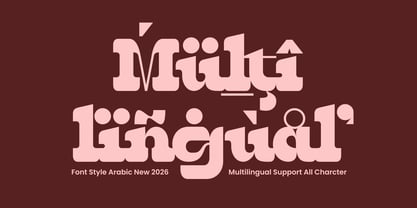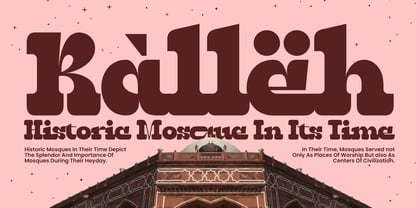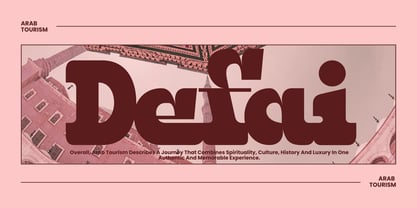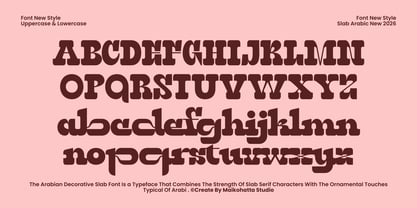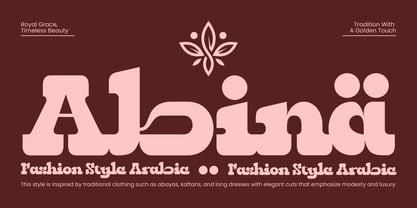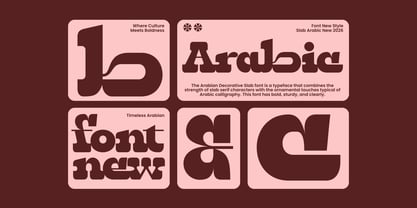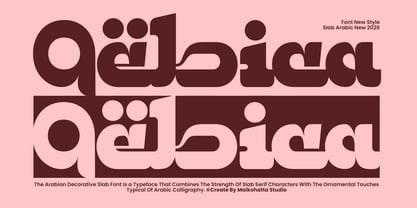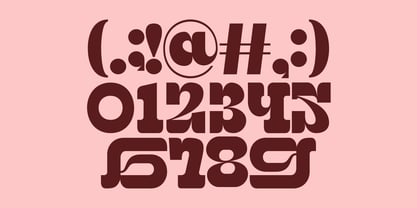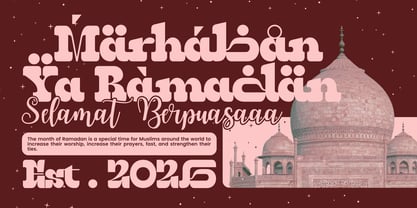
Qebica
The Qebica Font Family was designed by Gilang Ternadho and published by Maikohatta. Qebica contains 1 styles. More about this family
Introducing our new product Qebica – Arabic Decorative Slab Serif Qebica is a bold and distinctive Arabic decorative slab serif typeface that blends the strength of classic slab serif structures with ornamental elements inspired by Arabic calligraphy. Designed with powerful curves, rounded terminals, and strong geometric proportions, this font delivers a unique cultural character while maintaining modern readability. Perfect for logos, branding, packaging, posters, headlines, editorial layouts, social media graphics, and display purposes, Qebica brings an elegant Middle Eastern aesthetic with a contemporary slab serif twist. Its thick strokes and decorative details make it ideal for projects that need a strong visual presence while still feeling artistic and refined.
Qebica